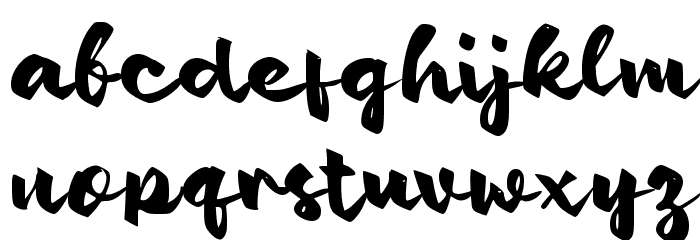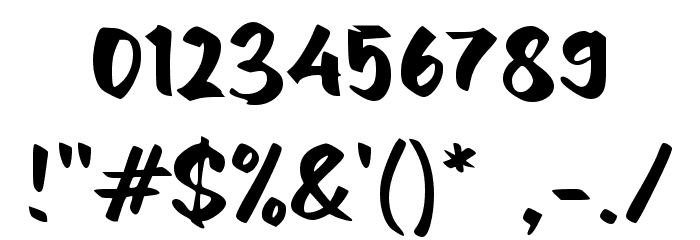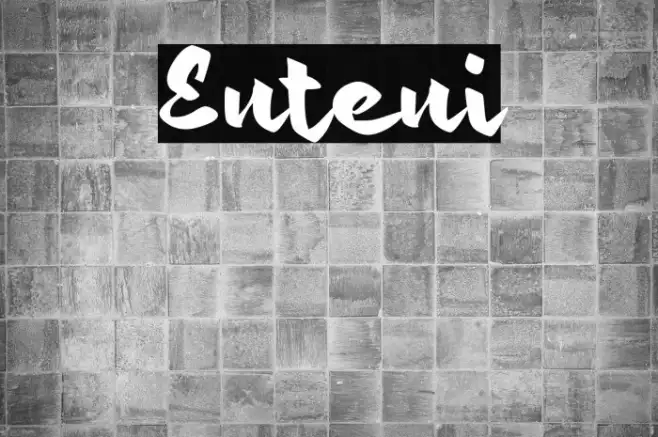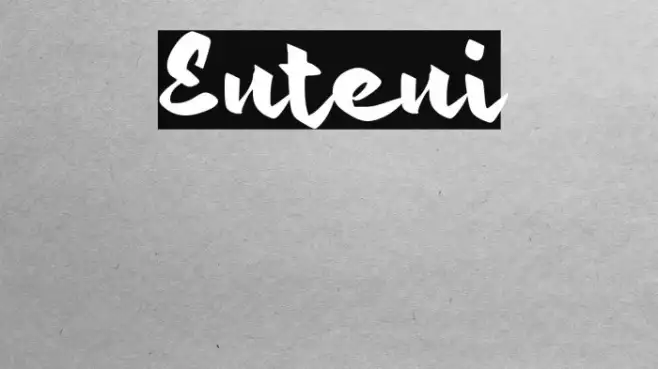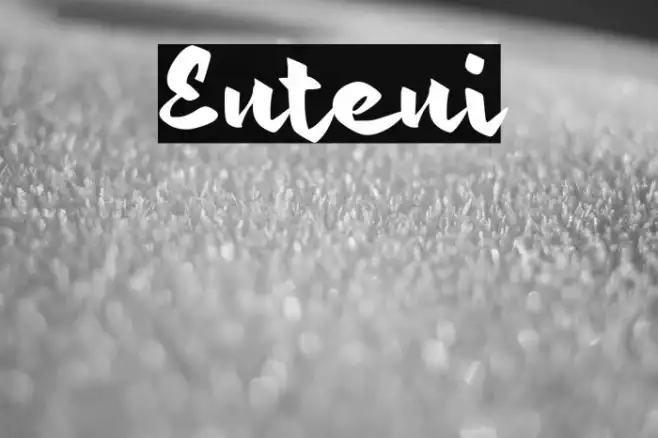
Enteni Font
This font features a bold and dynamic script style with a handwritten appearance. The characters are fluid and expressive, with a playful yet sophisticated flair. The uppercase letters are slightly larger and more pronounced, while the lowercase letters maintain a consistent flow. The numbers and special characters are designed to match the overall aesthetic, providing a cohesive look. The strokes are thick and consistent, giving the font a strong presence. This style is ideal for projects that require a personal touch or a creative edge.
A bold, dynamic script font with a handwritten, expressive style.
- Proposed Projects: Ideal for branding, invitations, greeting cards, and creative projects that require a personal touch.
- Category: Script
- Use Case: Logos, Headlines, Invitations